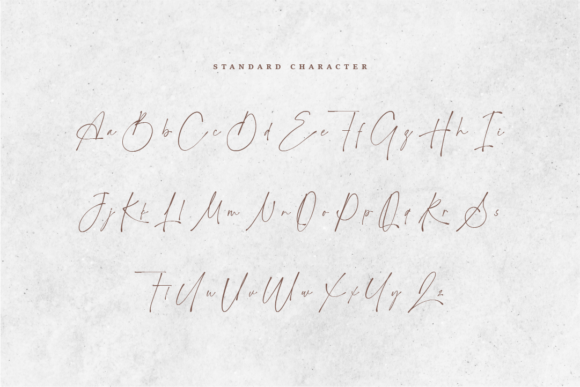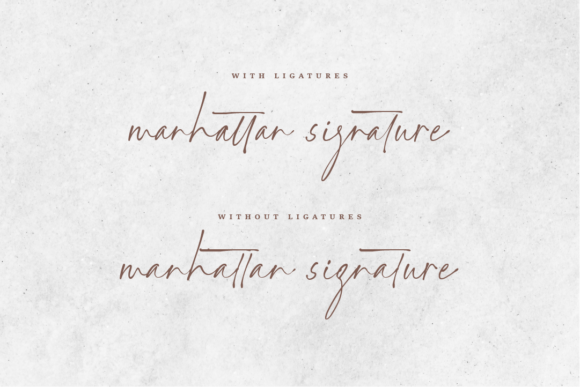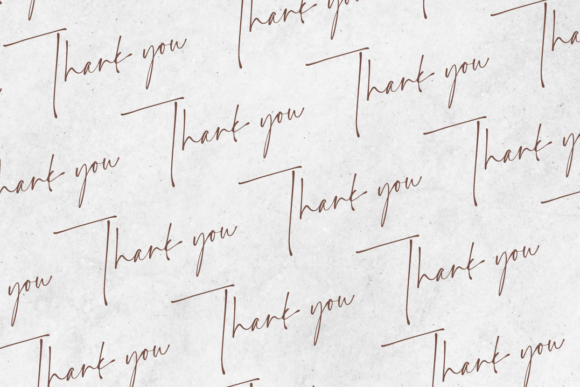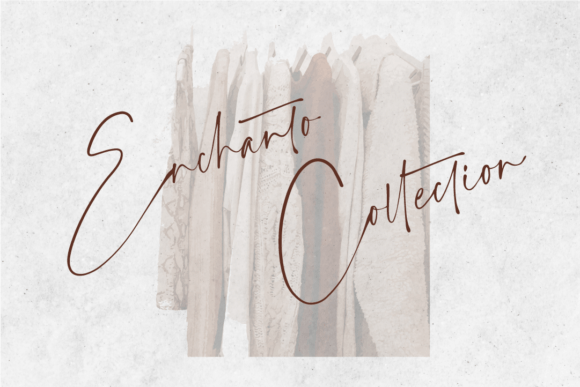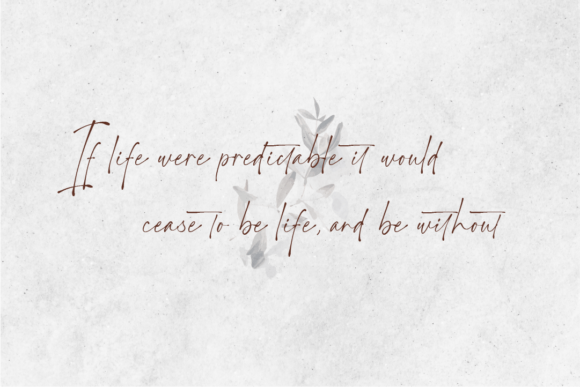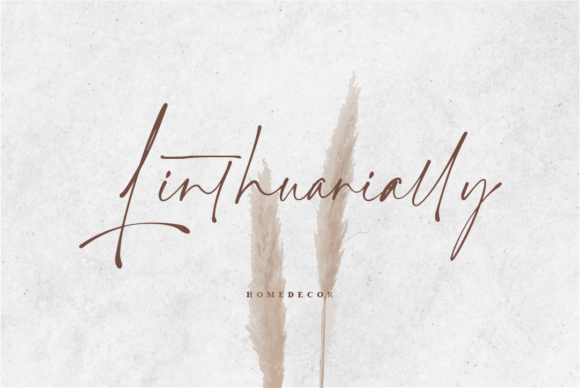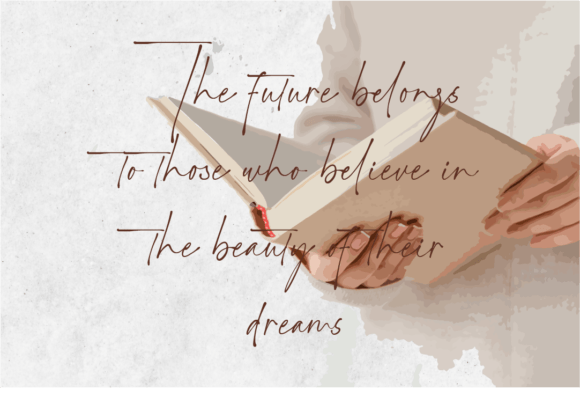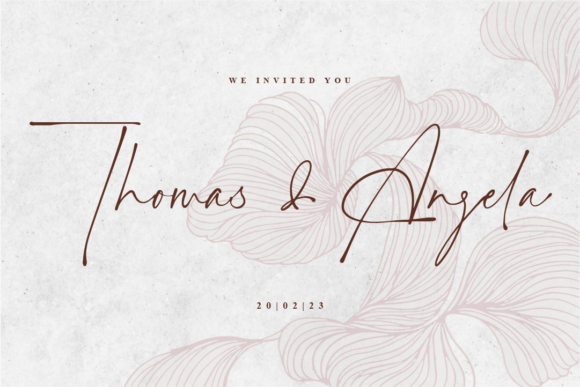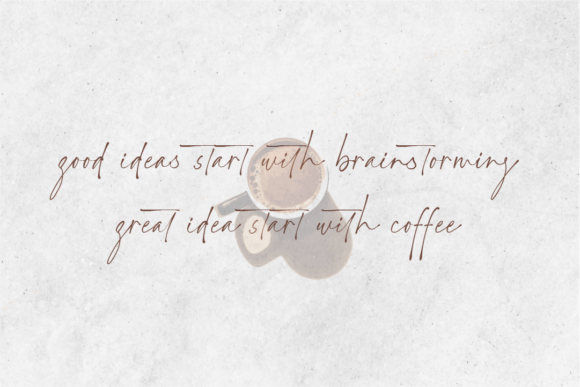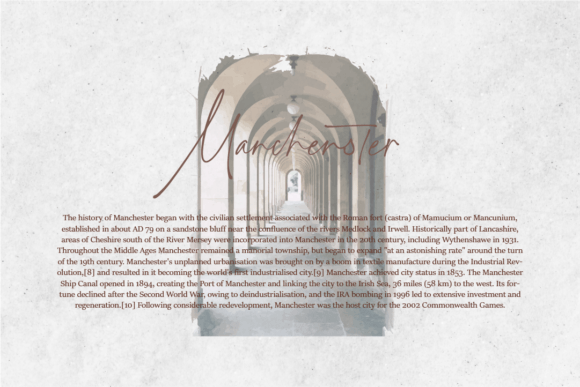
Manhattan Signature Font
Elevate Your Designs with Manhattan Signature Font
Manhattan Signature Font is a stylish and luxurious handwritten typeface crafted to bring elegance and sophistication to your creative projects. Its smooth, flowing strokes and refined character shapes add a polished look to any design. Whether you are working on invitations, mockups, logos, or materials, Manhattan SignatureFont enhances your work with a touch of luxury.
The font’s modern signature style combines timeless beauty with contemporary appeal, making your designs stand out with grace and charm.
Versatile Applications for Manhattan Signature Font
Manhattan SignatureFont is perfect for a variety of design projects, including:
• Wedding and event invitations
• Elegant logos and brand identities
• Product packaging and mockups
• Business cards and stationery
• Posters, flyers, and promotional materials
• Social media graphics and digital content
Its luxurious handwritten style adds uniqueness to every project.
With well-balanced kerning and clear letter spacing, Manhattan SignatureFont ensures excellent readability and aesthetic appeal across various sizes and formats.
Why Designers Choose Manhattan Signature Font
Designers love Manhattan SignatureFont for its chic and sophisticated look. It adds a personal, handcrafted touch that any project to a professional and elegant level. Whether you are a seasoned designer or a creative this font offers versatility and style that make your work memorable.
Use Manhattan SignatureFont to create captivating designs that impress and inspire.